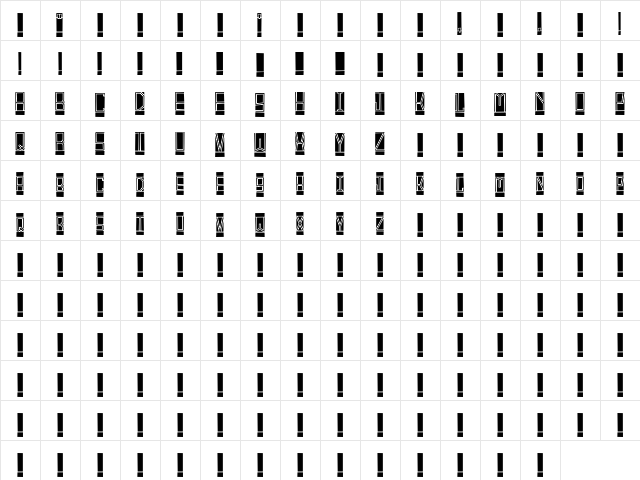
BlockTitling Standard
Design Context for BlockTitling Typeface
BlockTitling is a composed and adaptable typeface that performs quietly and consistently across a wide range of design contexts.